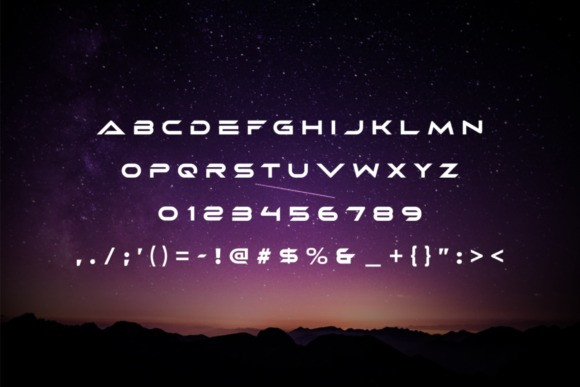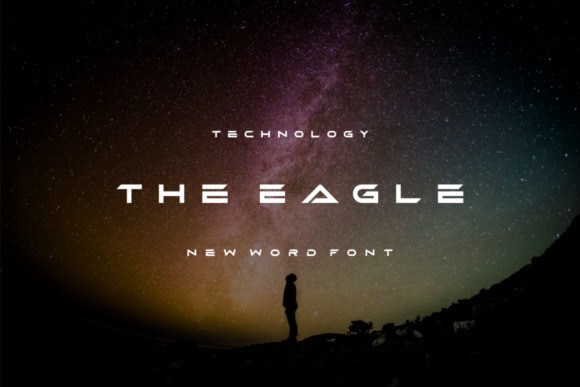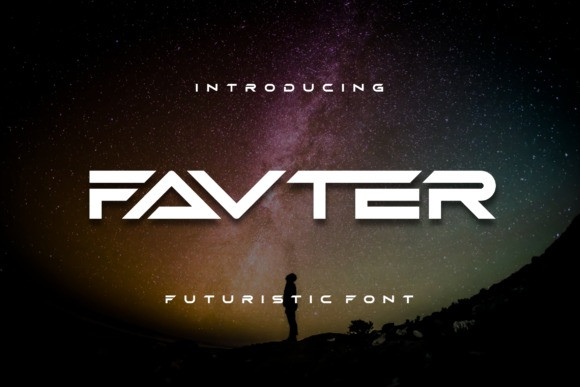
Favter Font
Favter Font– Modern Font is a bold and authentic display font. The font is suitable for any branding project like logo, t-shirt printing, e-sport, and many more. outstanding in a wide range of contexts.